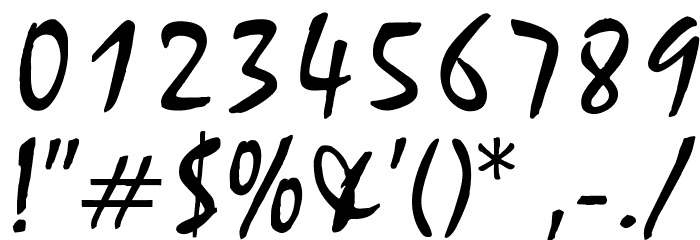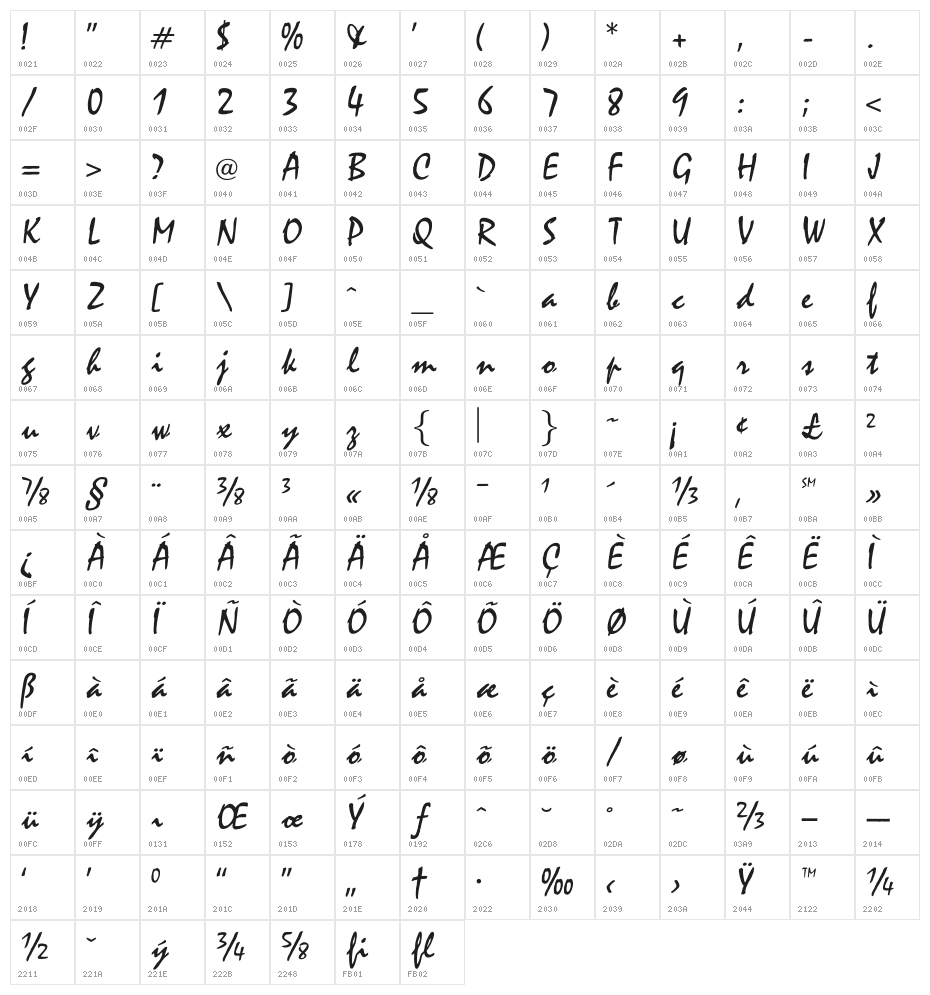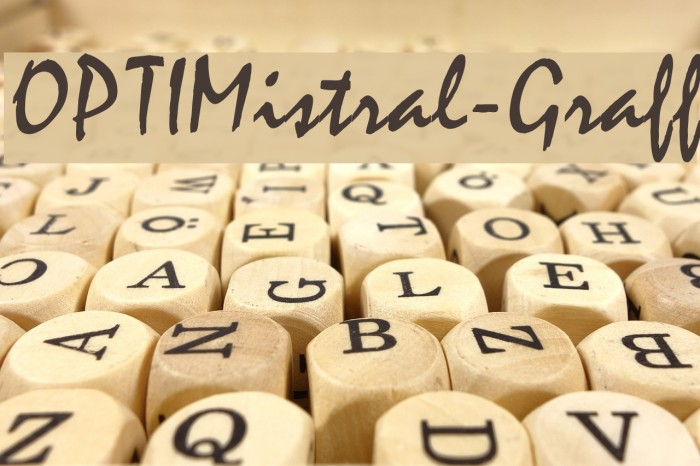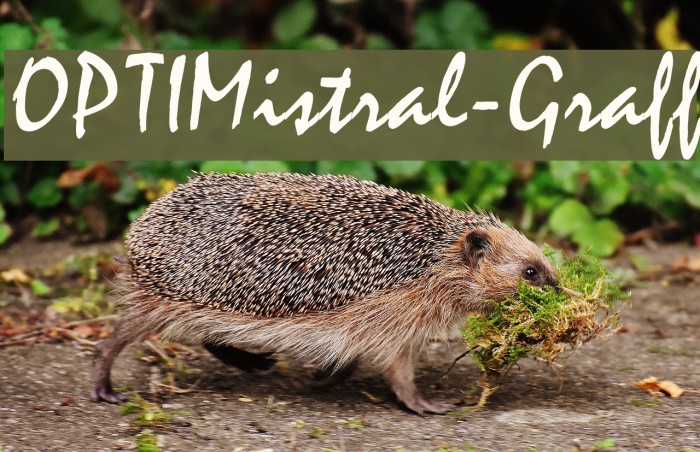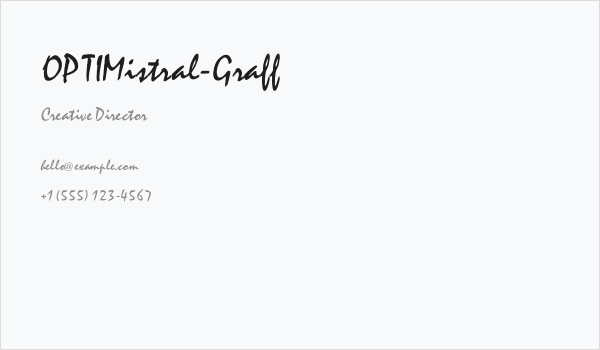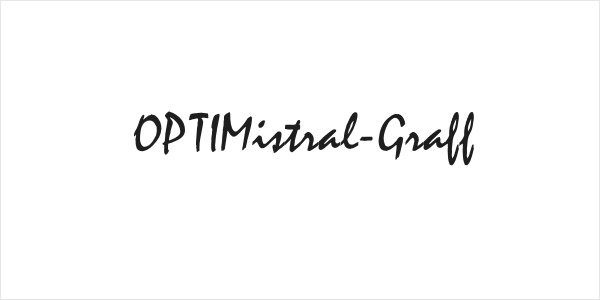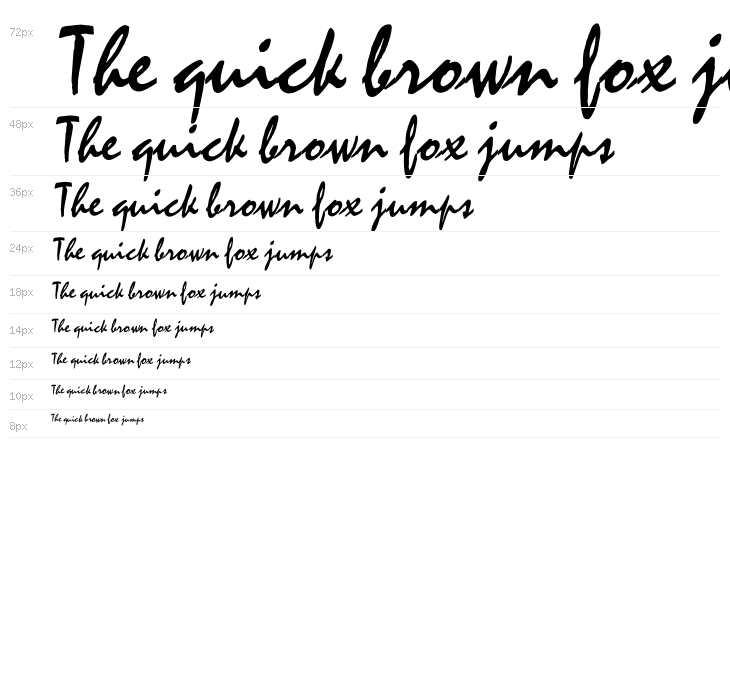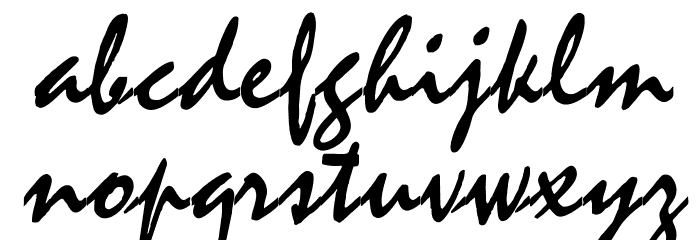
OPTIMistral-Graff Font
OPTIMistral-Graff Description
This font exudes a dynamic and energetic style, characterized by its handwritten appearance. The strokes are fluid and expressive, giving it a lively and informal feel. The uppercase and lowercase letters maintain a consistent flow, with slightly varying stroke thickness that adds to its organic look. The numerals and special characters complement the alphabet with similar fluidity and expressiveness. This font is ideal for projects that require a personal touch or a sense of movement and spontaneity.
| Proposed Projects | Ideal for greeting cards, posters, branding projects, and any design that benefits from a personal, lively touch. |